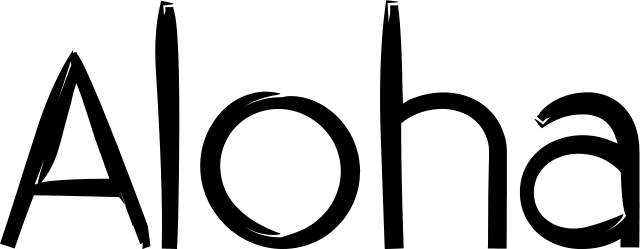
Give this Bequest font a try to beat the competition and enhance your creativity amazingly. This san serif font will be visible in many headlines due to its bold and strong letters. These solid square-end designs, despite not possessing numbers and punctuation marks, can be brought into play in many situations; paragraph writing projects, apps, websites, urban, and branding.